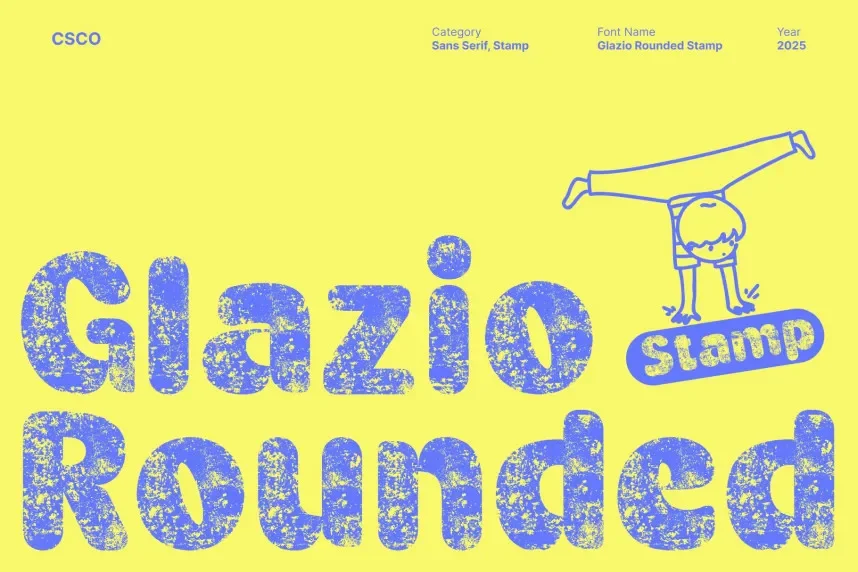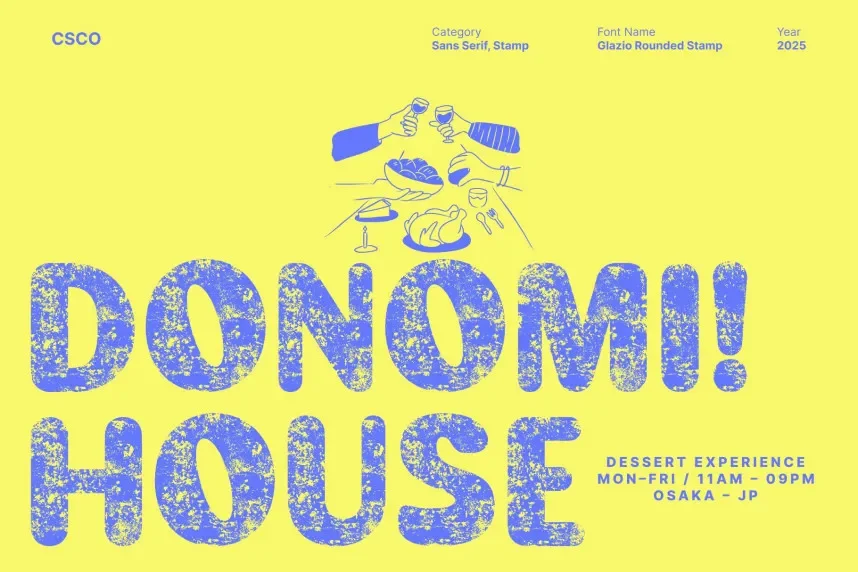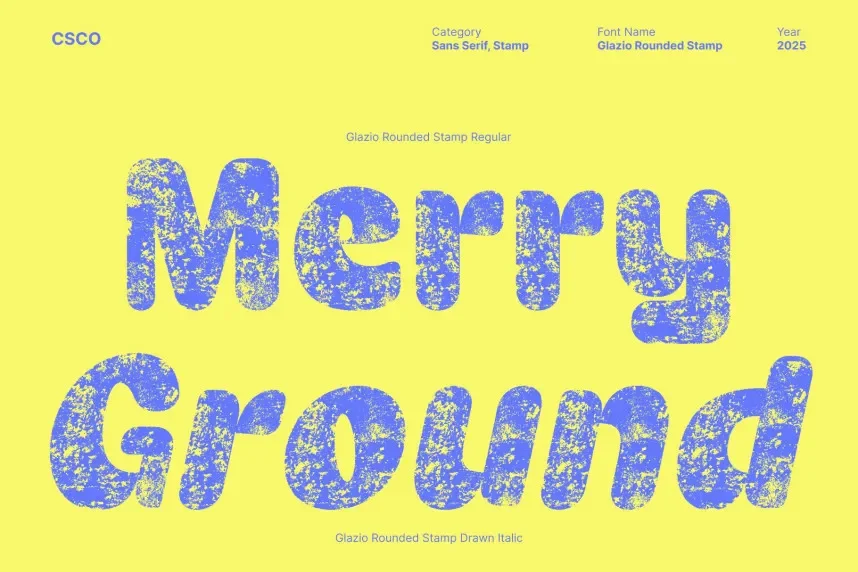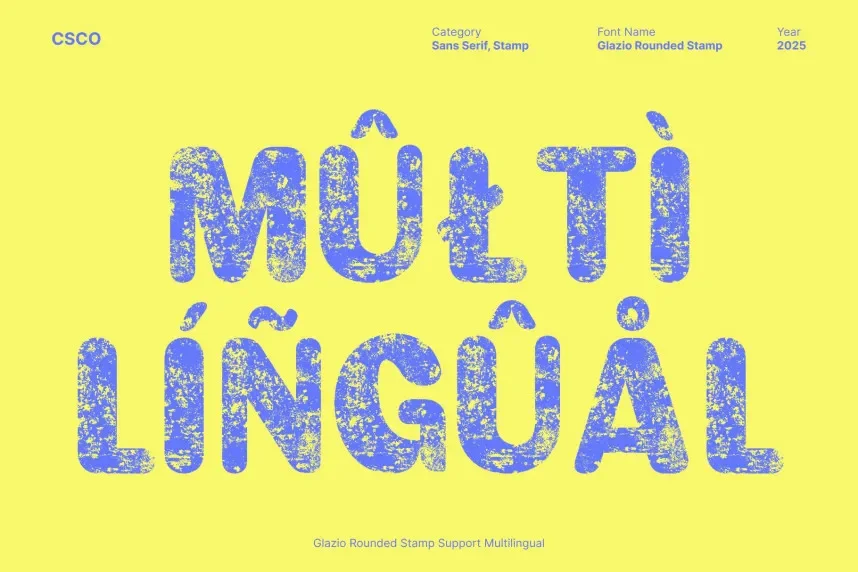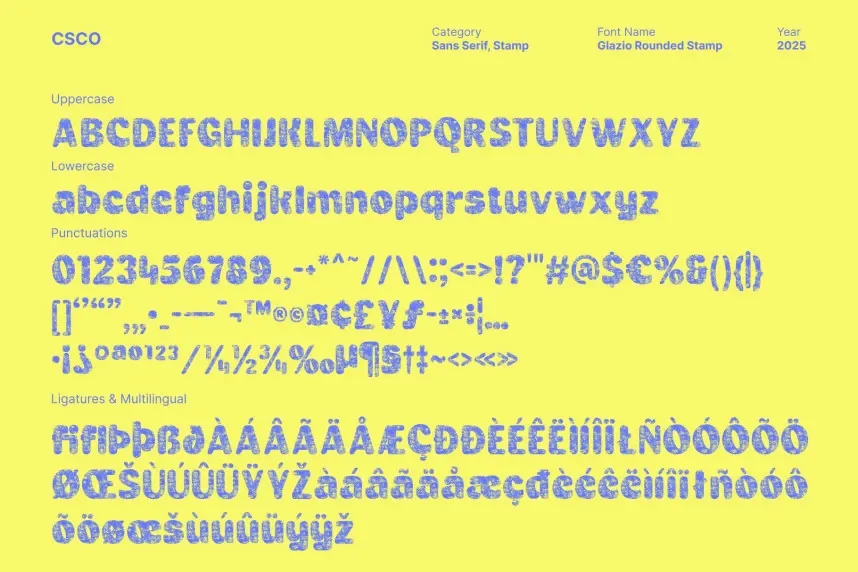
Glazio Rounded Stamp Font is a display typeface designed to balance texture with smooth readability. It helps designers create stamped visuals that feel bold without sharp or aggressive edges in branding and print work.
This font combines rounded letterforms with subtle distressed details. Stroke weight stays consistent, while curved corners improve legibility on screens and in print. The rounded structure softens the stamp effect, making it suitable for modern branding.